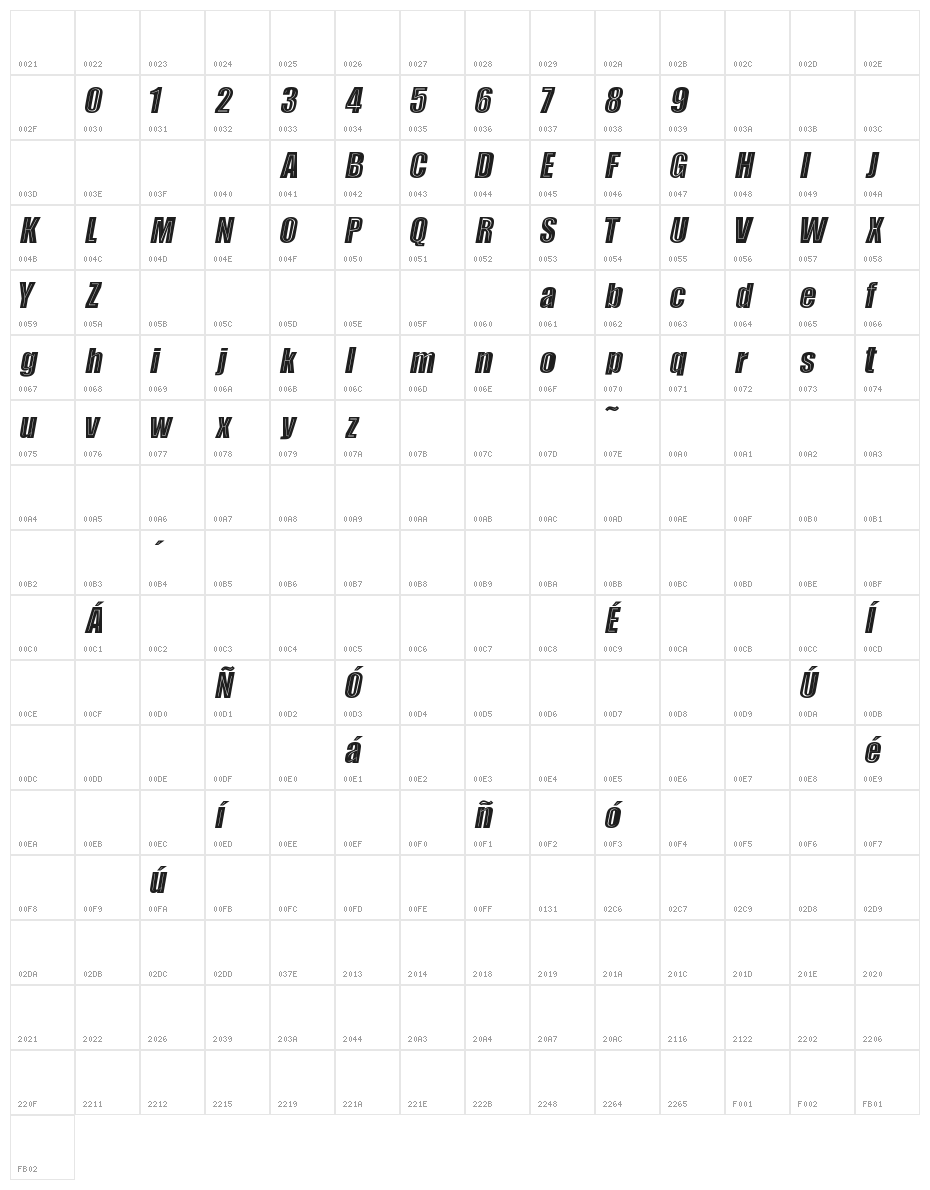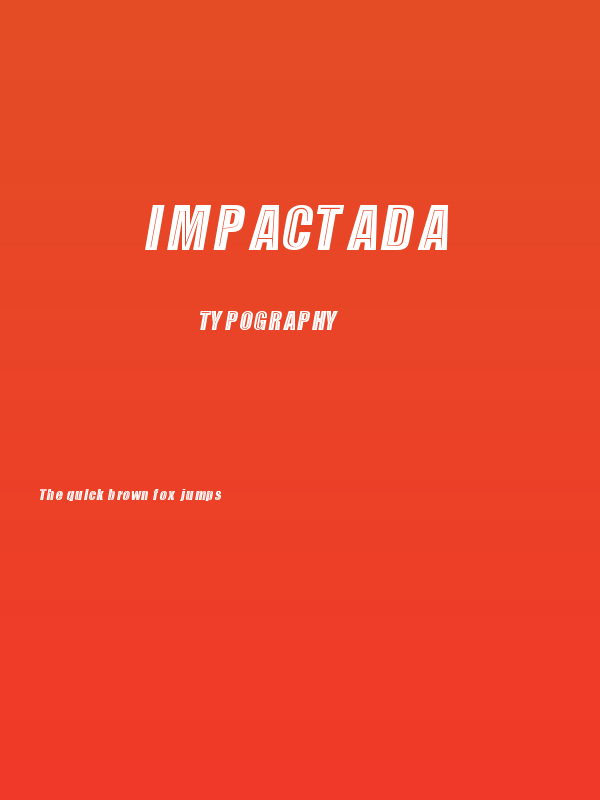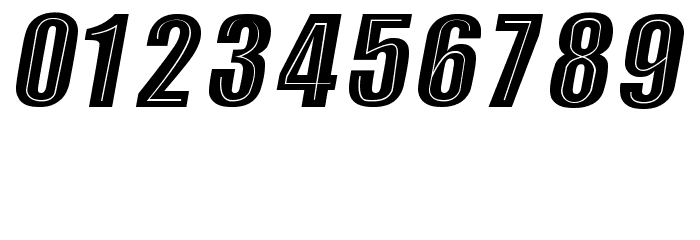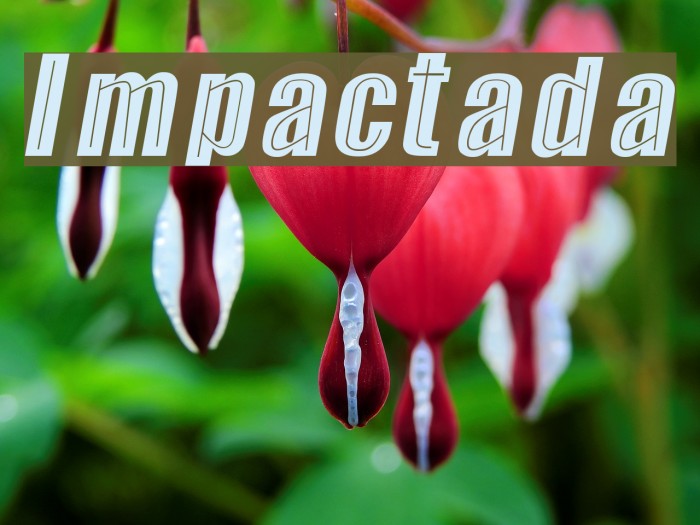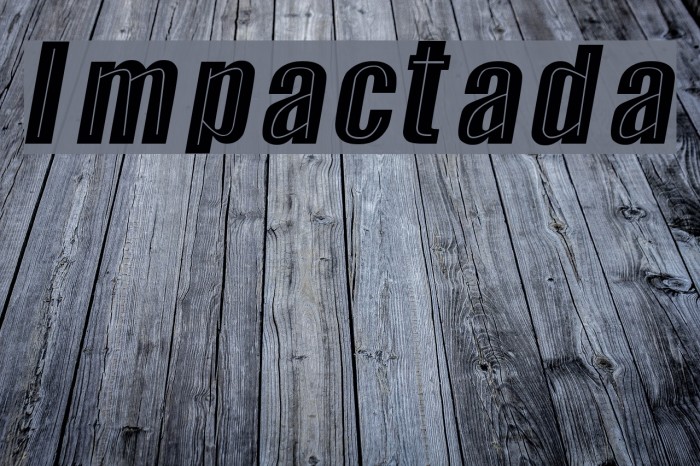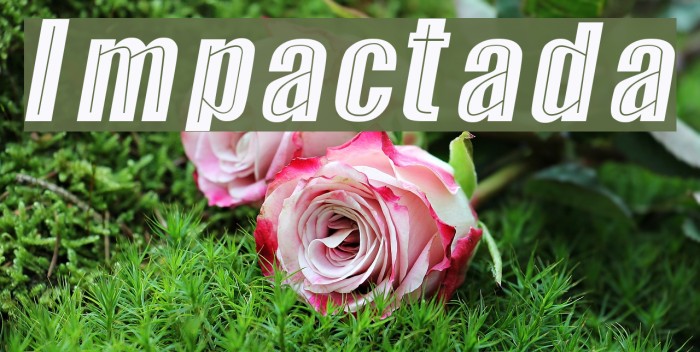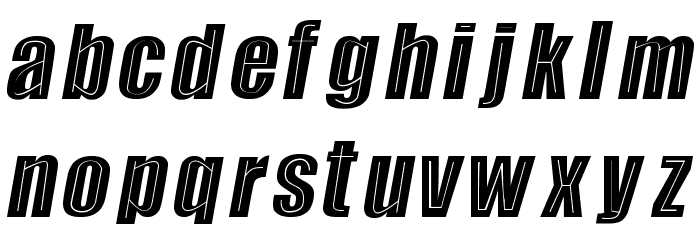
Impactada Font
Impactada Description
This font features bold, uppercase and lowercase letters with a distinct italic slant, creating a dynamic and impactful appearance. The characters are outlined with a thick black border, enhancing their visibility and adding a sense of depth. The font's style is modern and assertive, making it suitable for attention-grabbing headlines and titles. The numerals are consistent with the letterforms, maintaining the bold and italicized characteristics. The overall design is clean yet striking, with a strong emphasis on readability and visual impact.
| Proposed Projects | Ideal for sports branding, posters, headlines, and any project requiring a bold statement. |